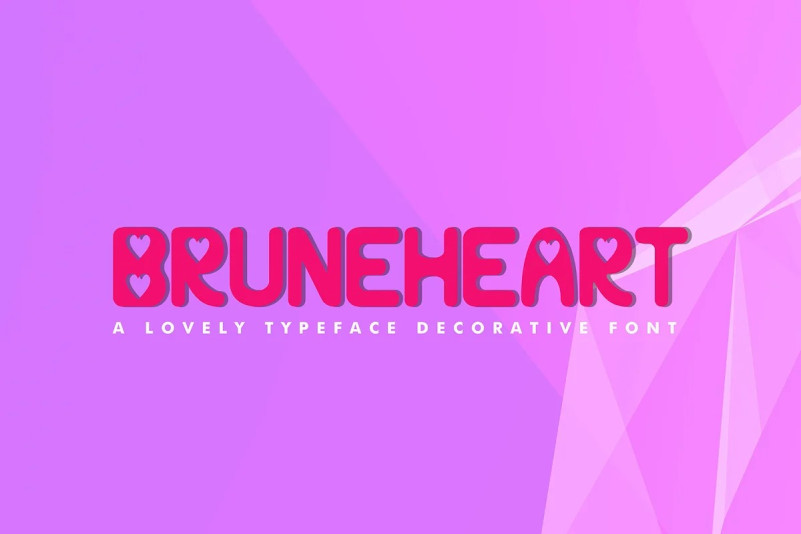
Bruneheart Font
Bruneheart Display Font is a lovely font display typeface which makes it great for any hearth love design. This typeface includes all caps letters, as well as numbers and the most commonly used symbols and punctuation. This font is ideal for headlines and other display type uses, such as flyers, posters, album artwork, invitations etc.